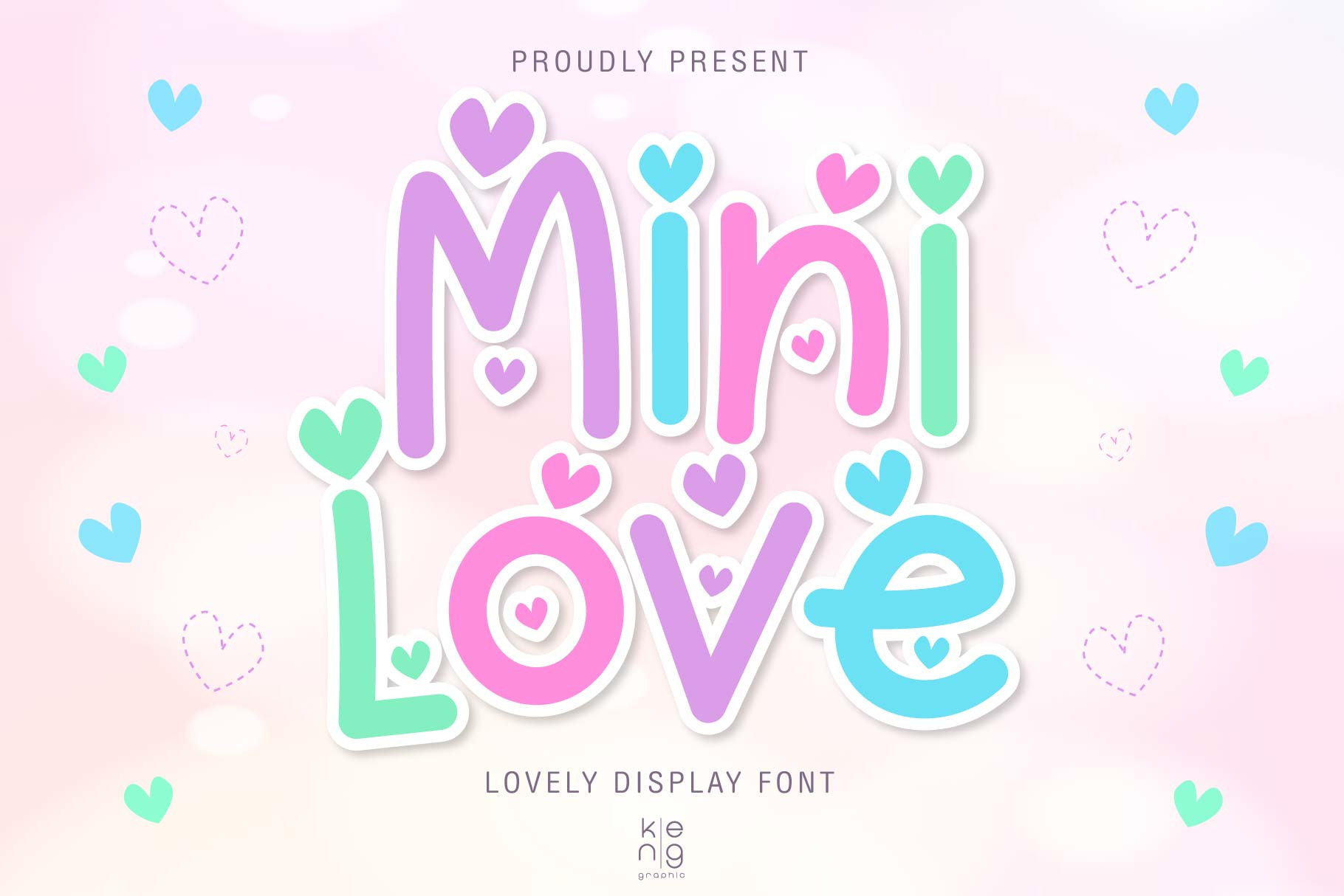
Mini Love Font
Introducing Mini Love, a uniquely expressive display font. Conjuring up visions of miniature hearts, it’s a font that effortlessly weaves romance into every design. Ideal for gracing designer bags, imprinting on trendy t-shirts, or personalizing your favorite mug, Mini Love transforms anything it touches. It’s not just a font, it’s a thoughtful addition to everything that stands close to your heart. Experience Mini Love and bring a delightful touch of affection to all your creations.